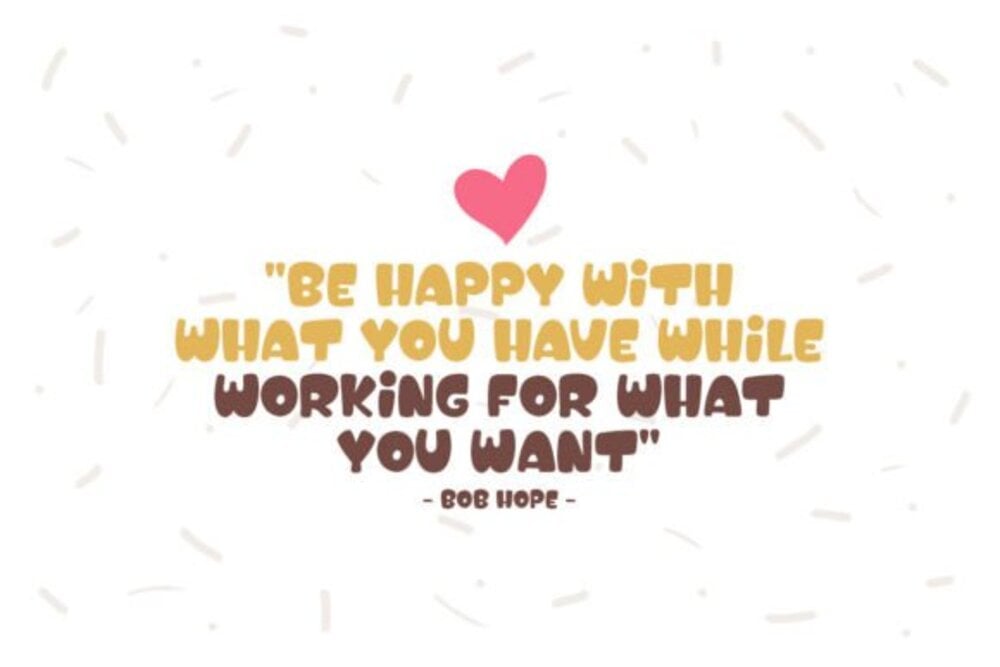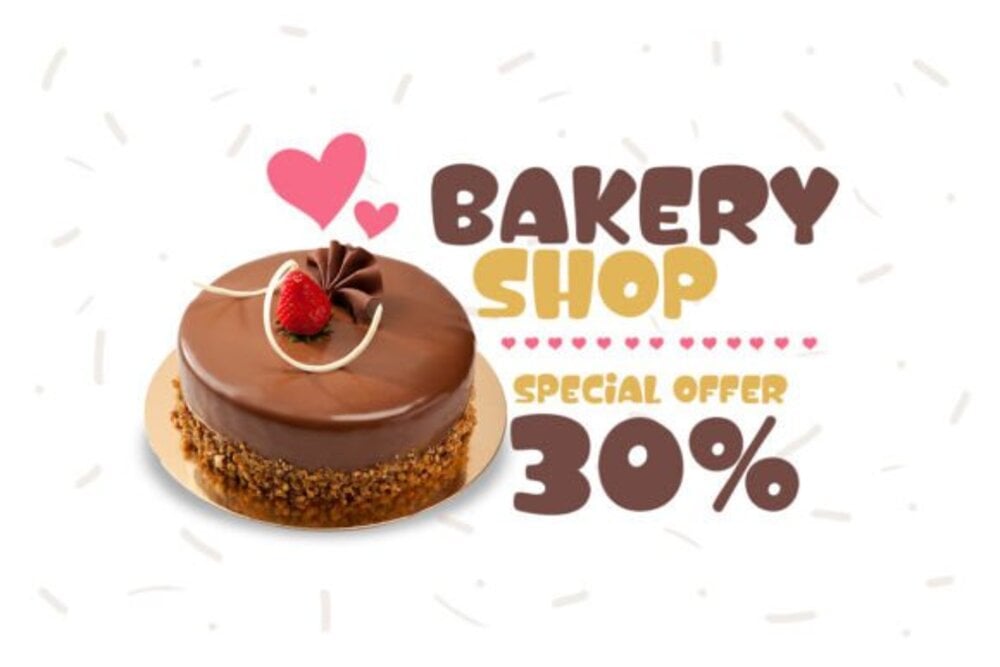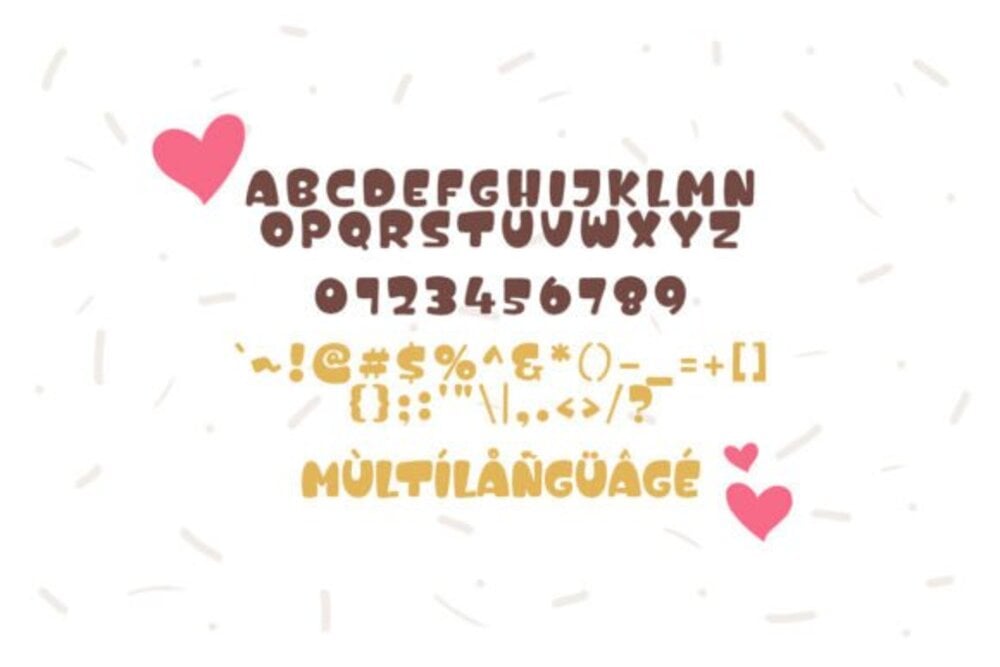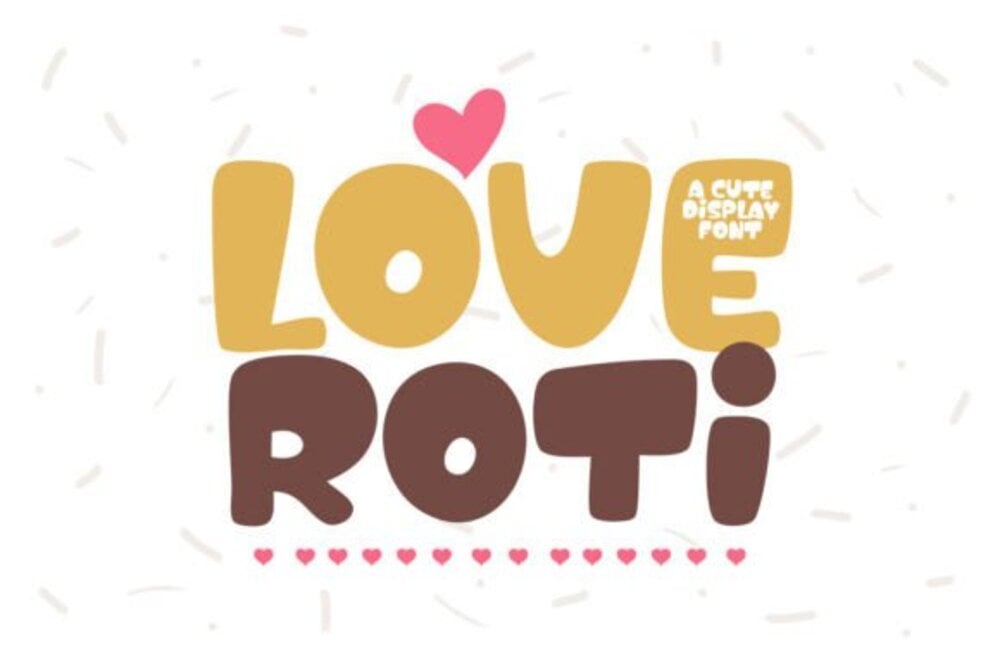
Cute Roti Font
Cute Roti Font is a playful and charming typeface inspired by the round shapes and comforting textures of flatbreads like roti. Its warm and inviting curves make it perfect for children’s books, menus, branding for bakeries or restaurants, and any project that needs a touch of friendly, handcrafted charm.